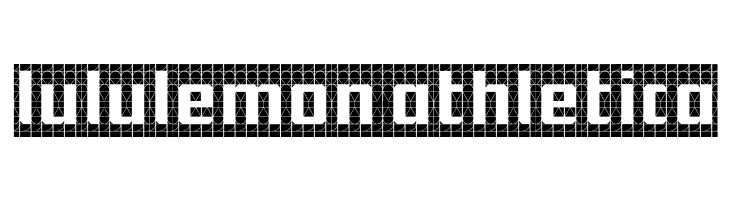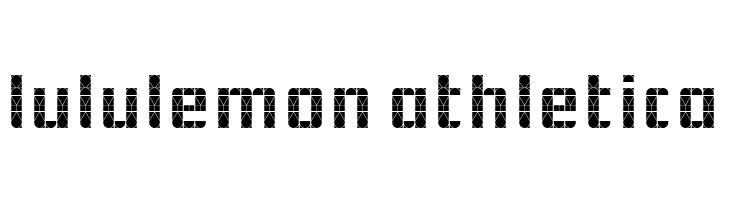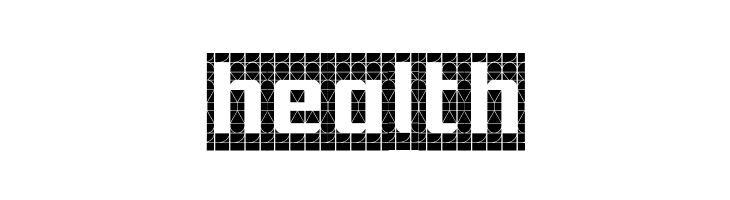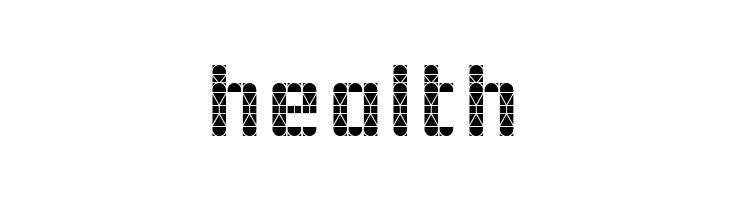
A bold, geometric patterned font with a modern and edgy aesthetic.
A geometric, grid-based font with bold, angular letterforms and a futuristic style.